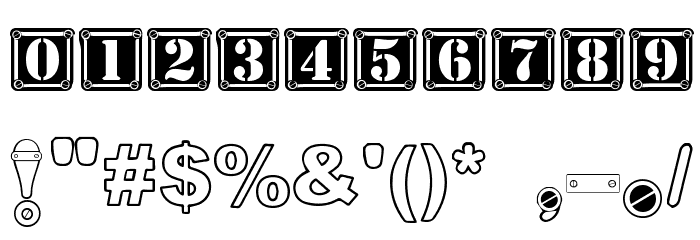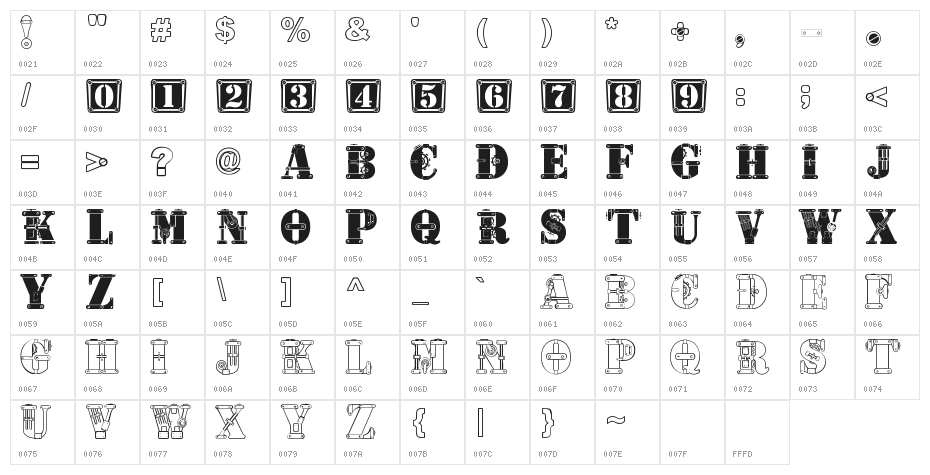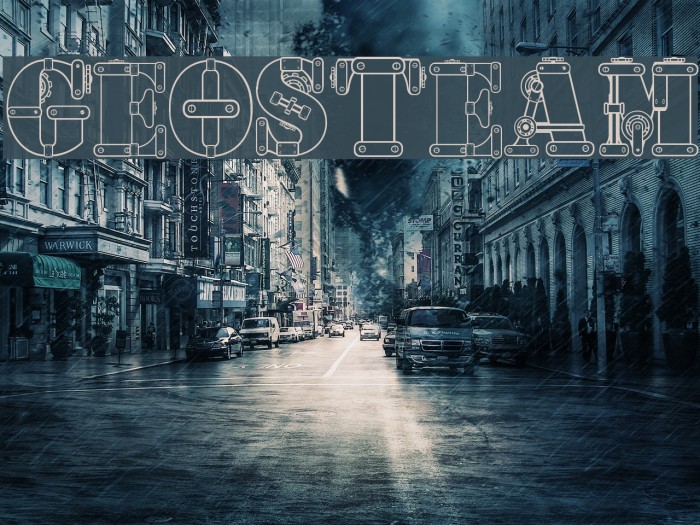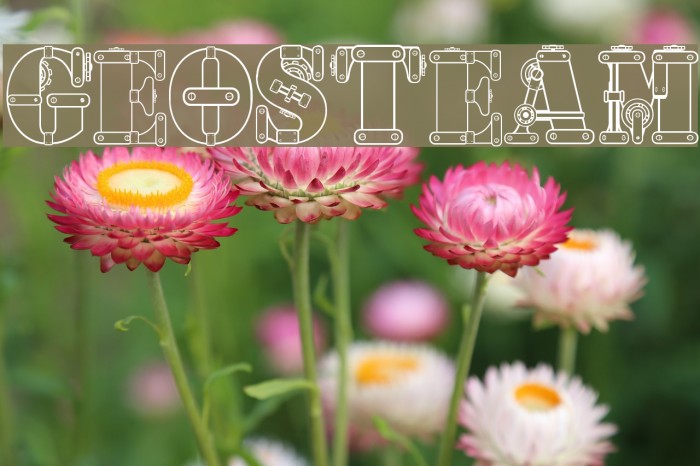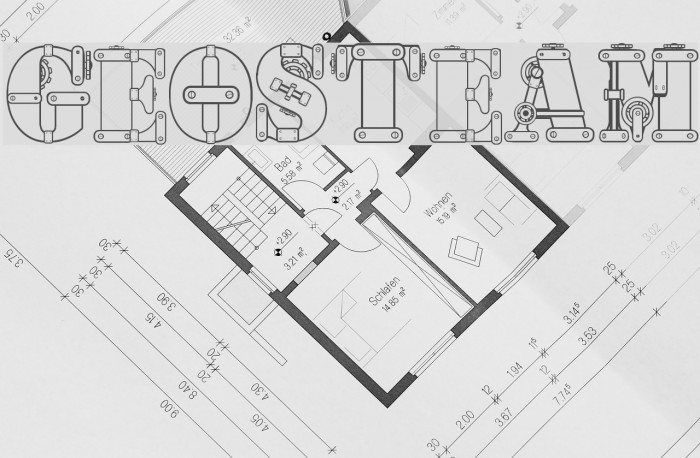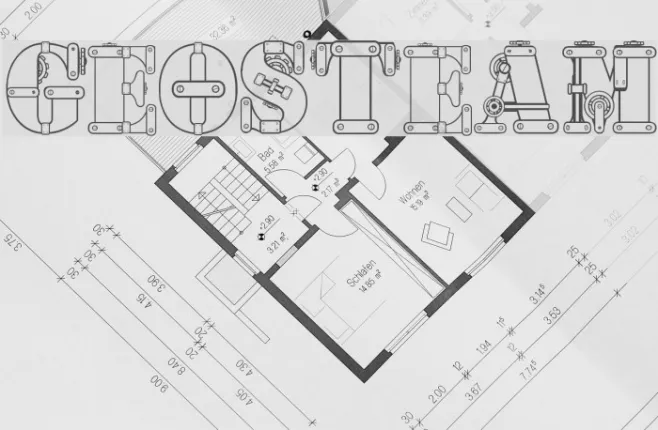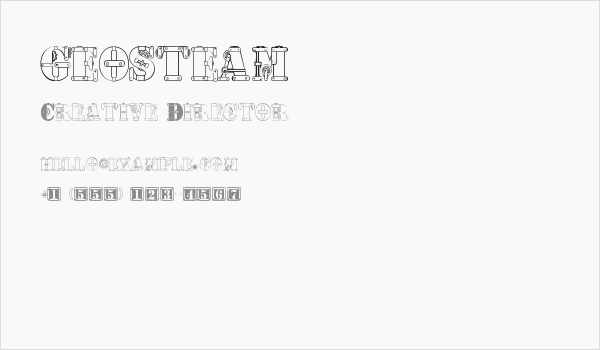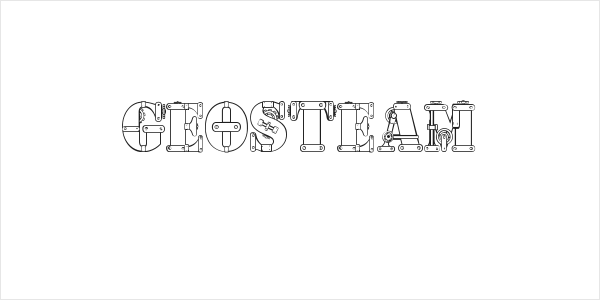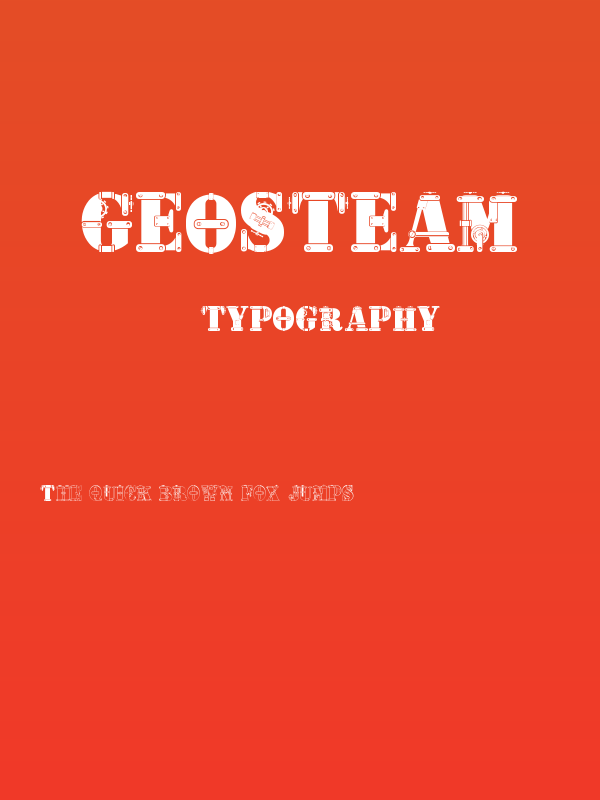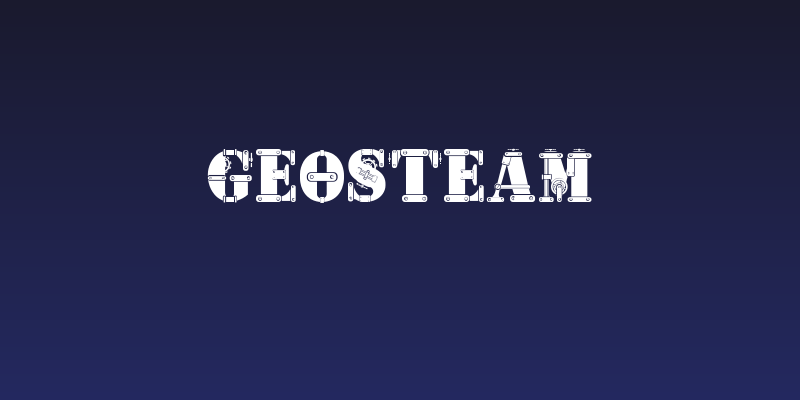
geosteam Font
geosteam Description
This font features a unique, industrial design with elements reminiscent of mechanical parts and gears. Each character is constructed with intricate details, giving it a steampunk aesthetic. The uppercase and lowercase letters, as well as numbers and special characters, are designed with a consistent theme that incorporates bolts, rivets, and metallic textures. The font's bold and structured appearance makes it stand out, while the detailed embellishments add a decorative touch. It's perfect for projects that require a mechanical or vintage industrial feel.
| Use Case | Logos, Posters, Themed Events |
| Proposed Projects | Ideal for steampunk-themed designs, industrial branding, posters, and creative projects that require a mechanical or vintage aesthetic. |